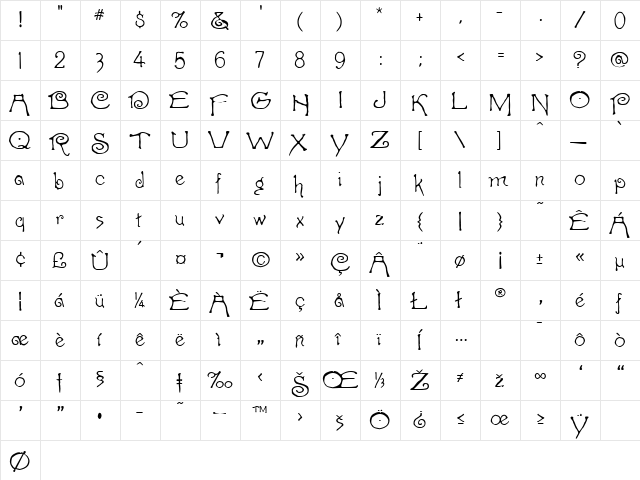
Cappuccino Regular
Design Context for Cappuccino Typeface
Cappuccino is a composed and adaptable typeface that performs quietly and consistently across a wide range of design contexts.